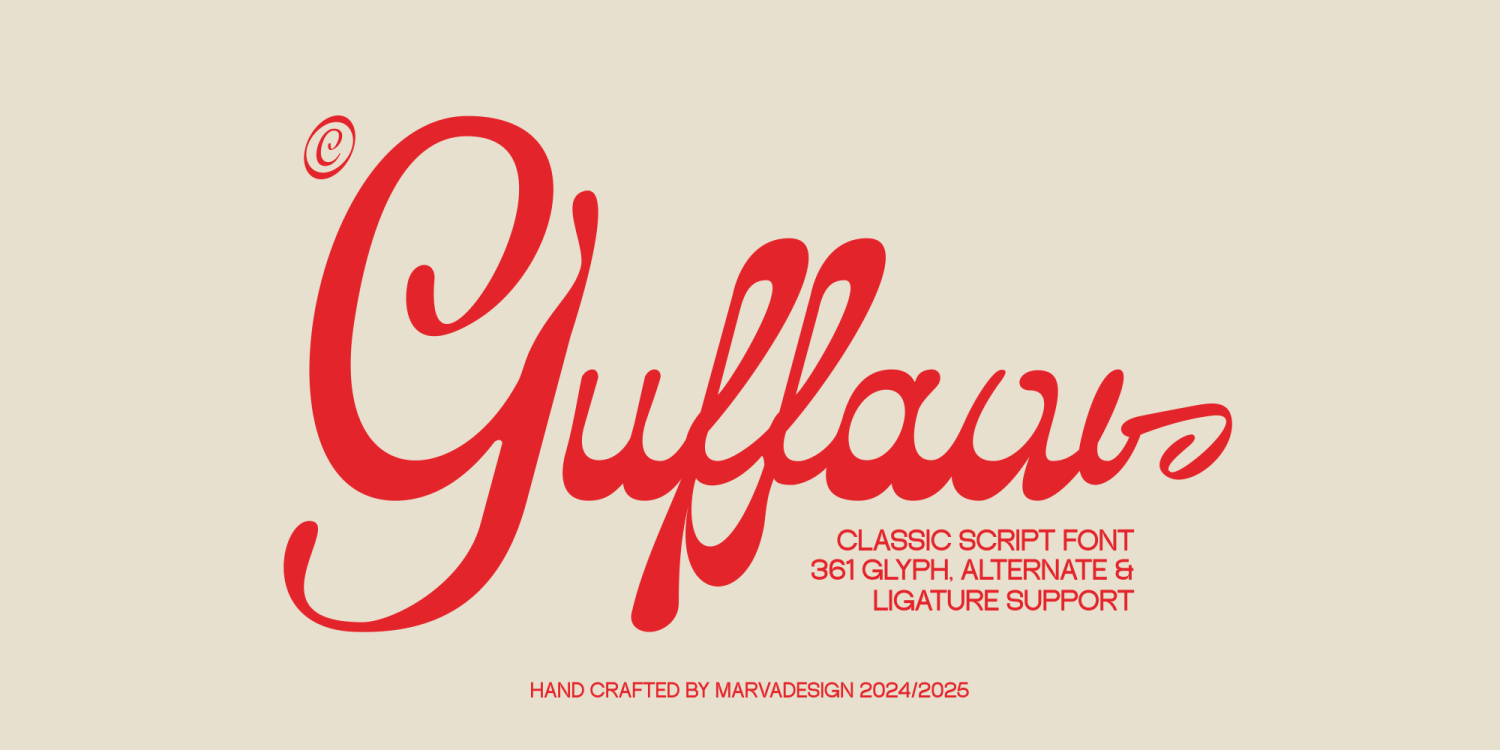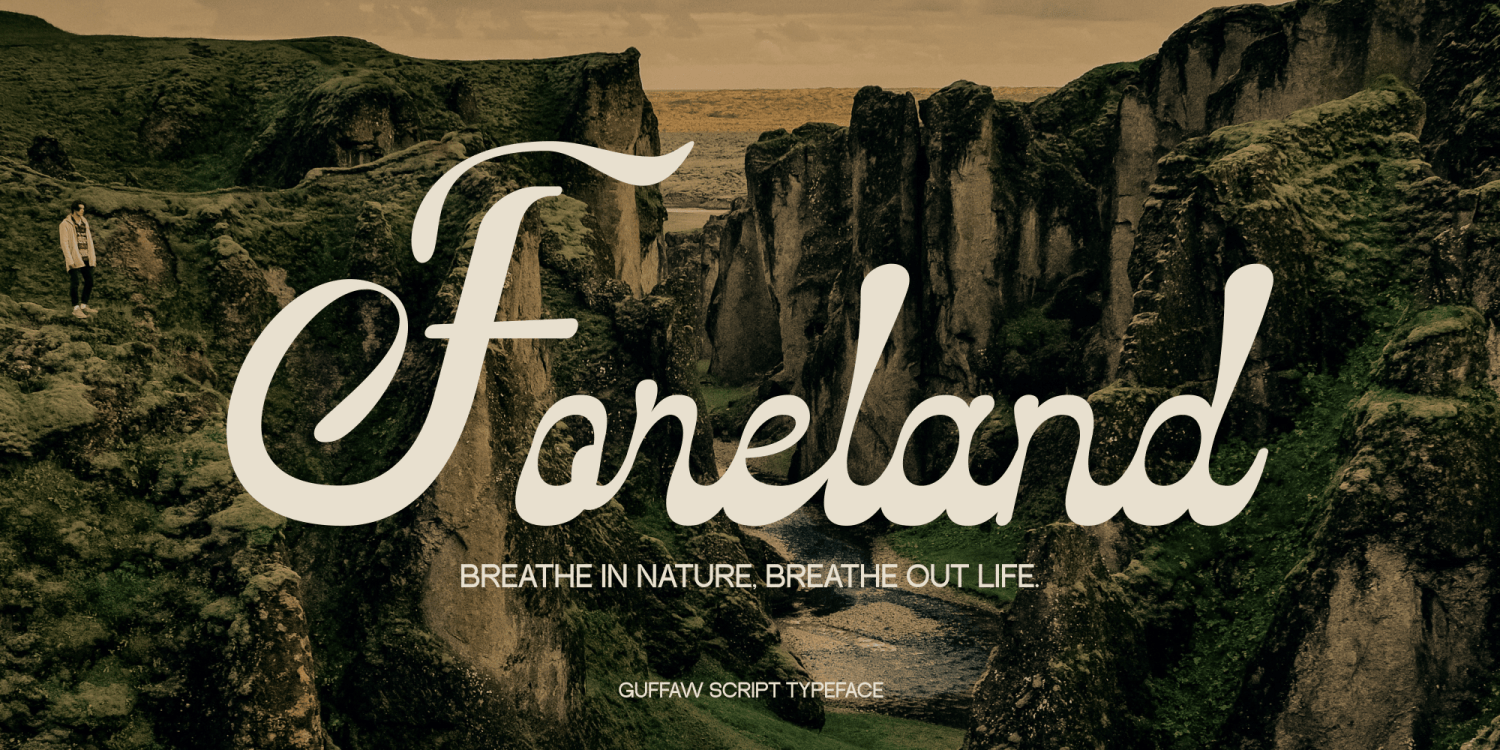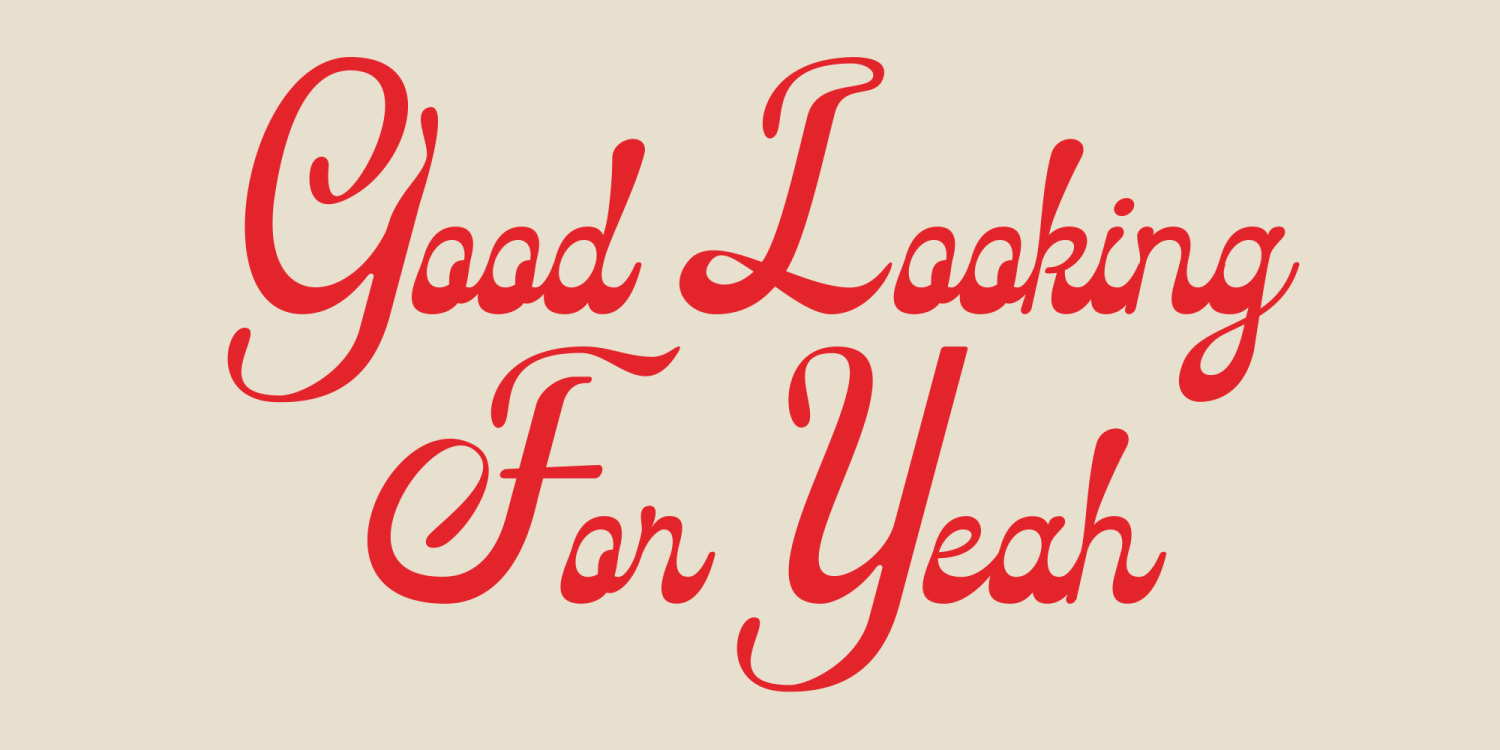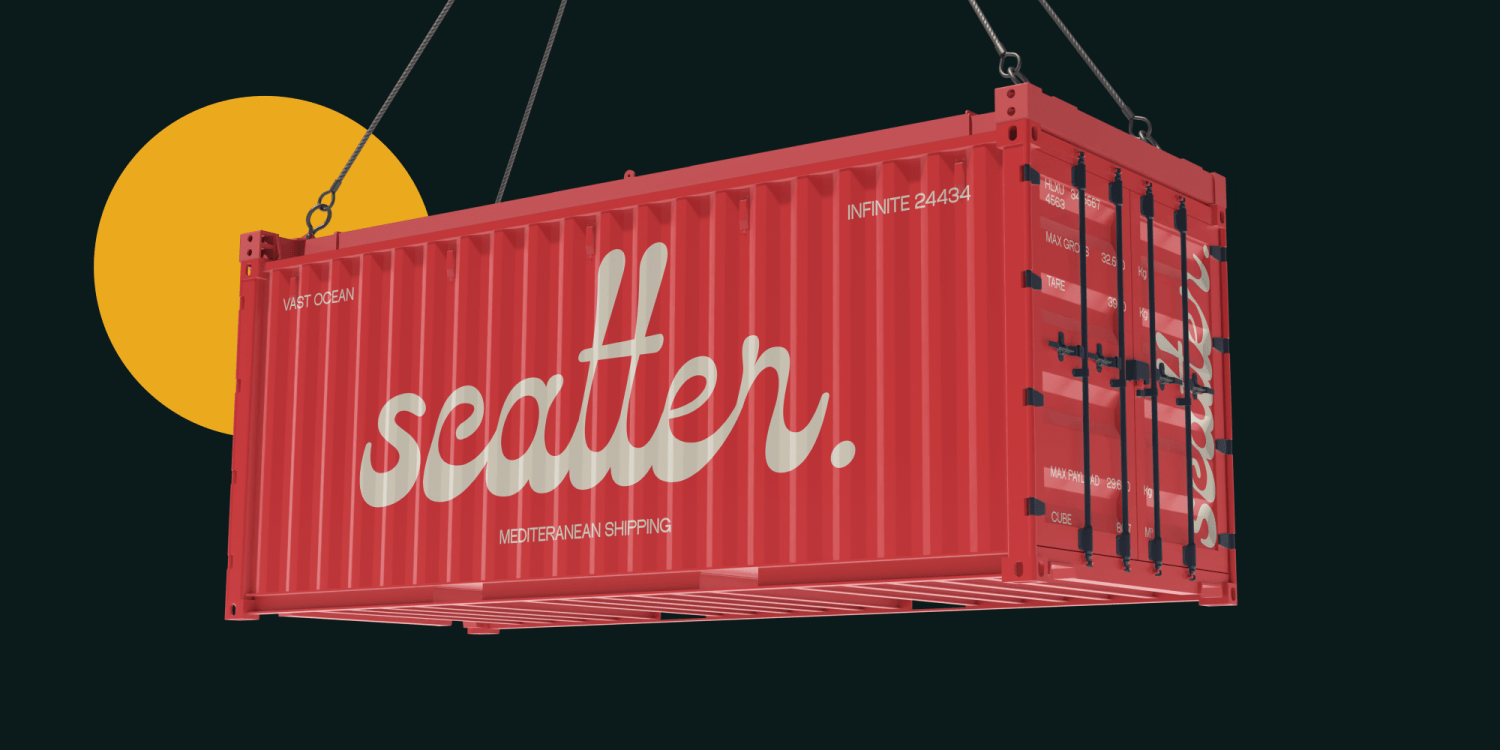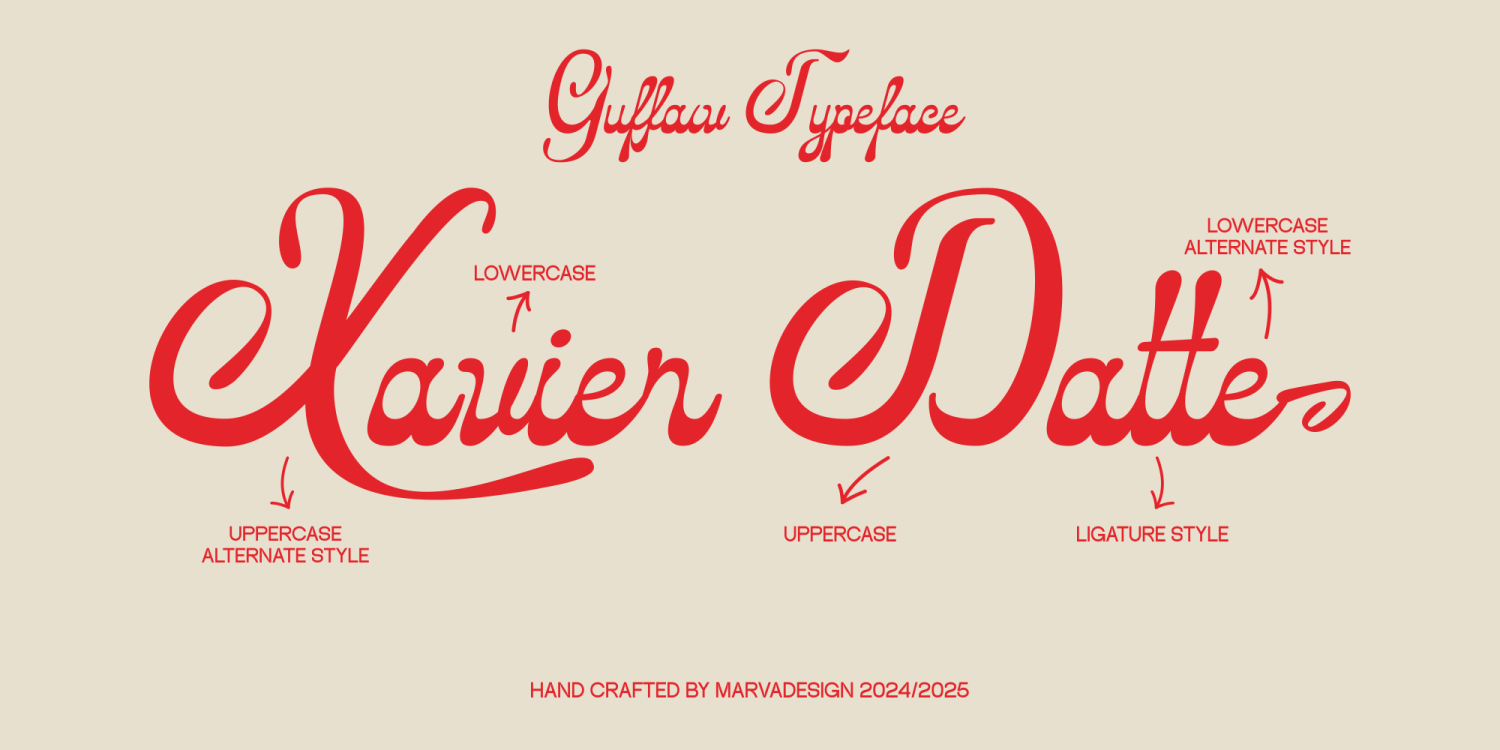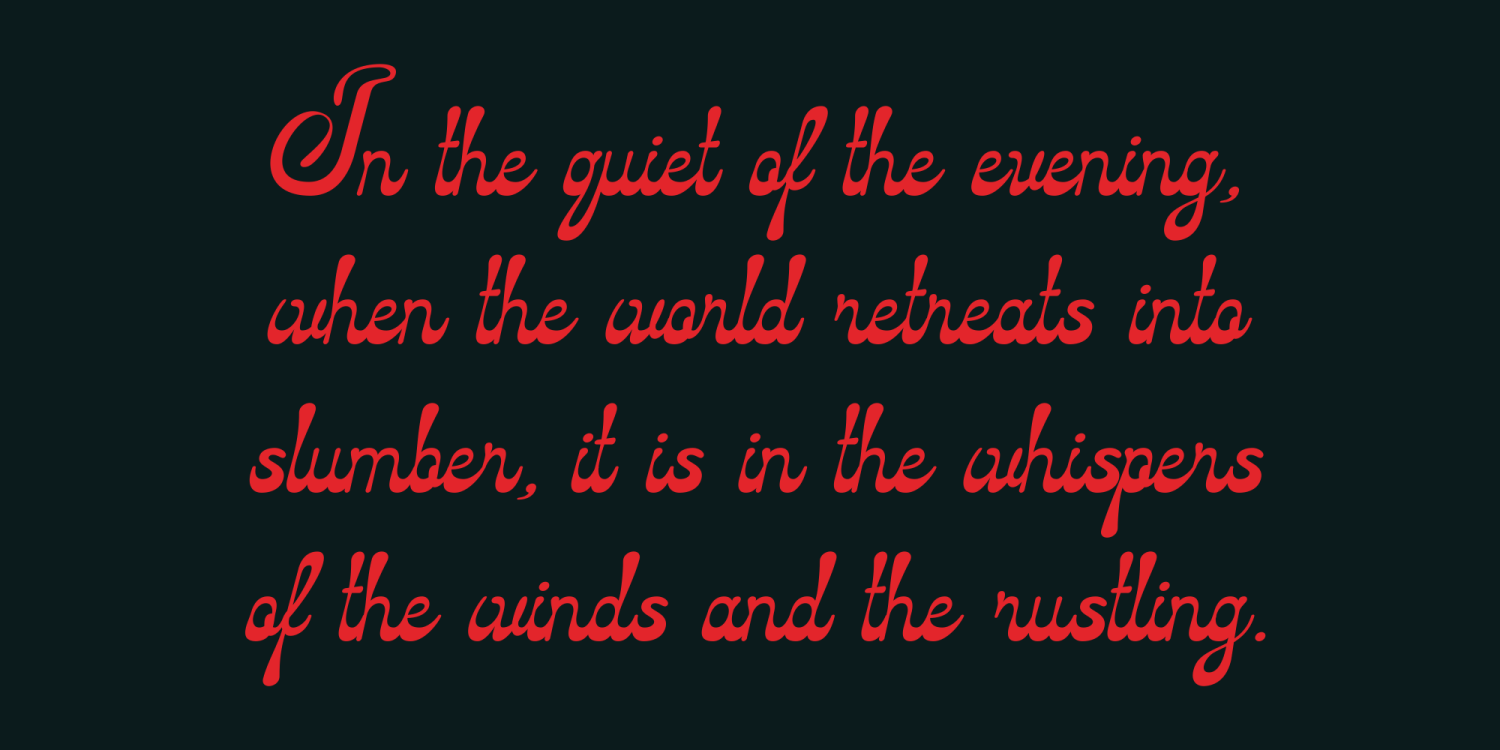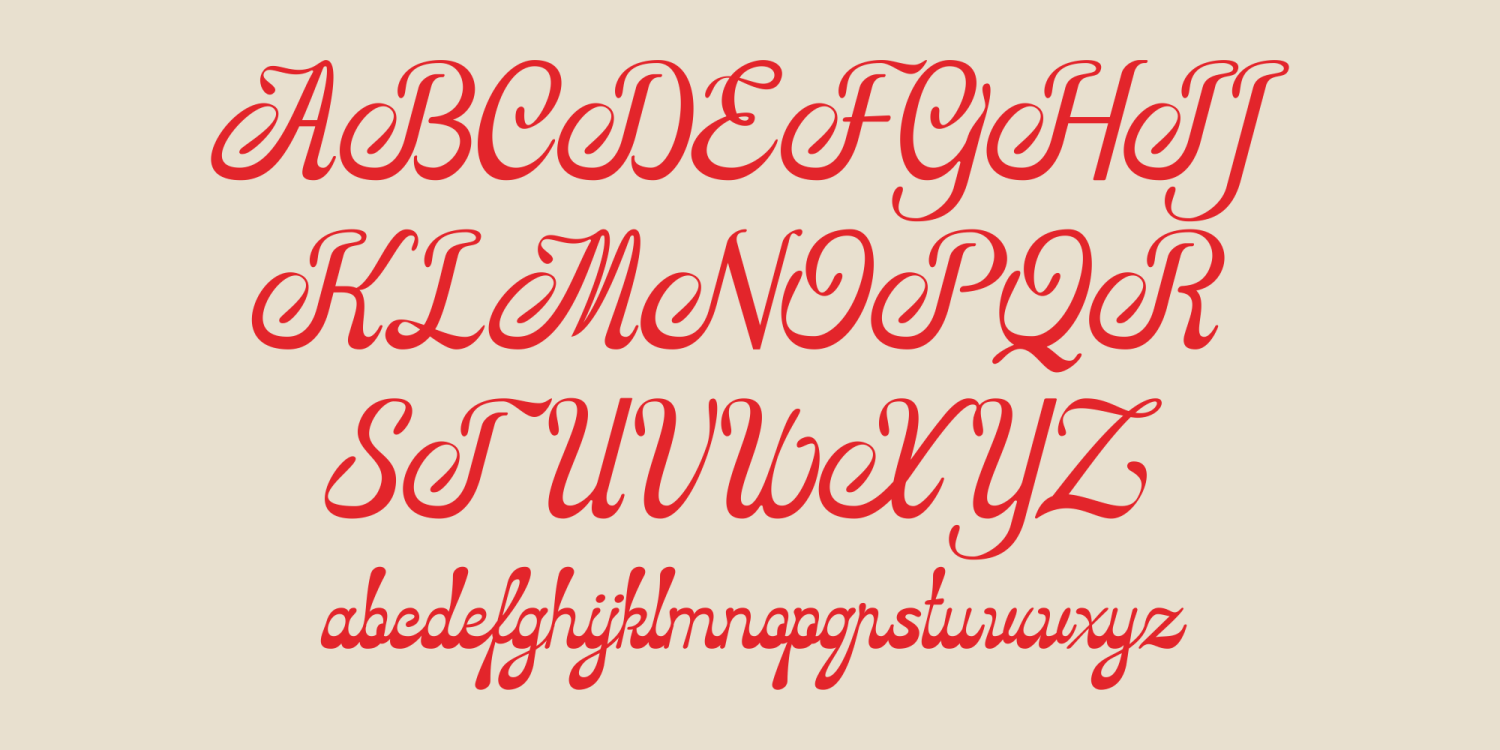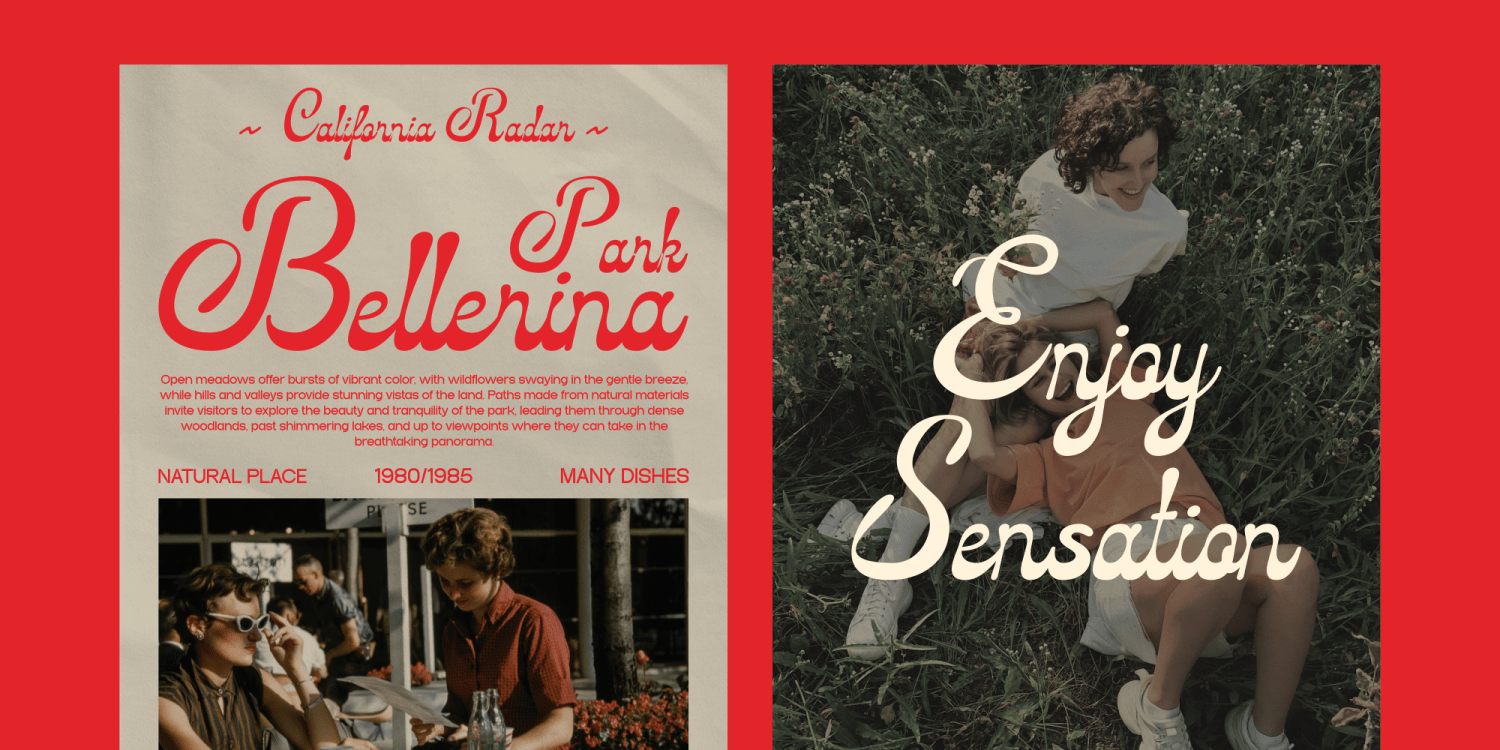
Guffaw Regular
Buy NowIntroducing Guffaw Font is a lively and expressive typeface in the style of handwritten script, combining elements of retro charm and groovy aesthetics. Its fluid strokes and organic letterforms evoke a sense of playfulness and nostalgia, making it an ideal choice for designs seeking a vintage yet vibrant appeal. The font’s retro influences are balanced with a modern twist, giving it a distinctive personality that feels both timeless and fresh.